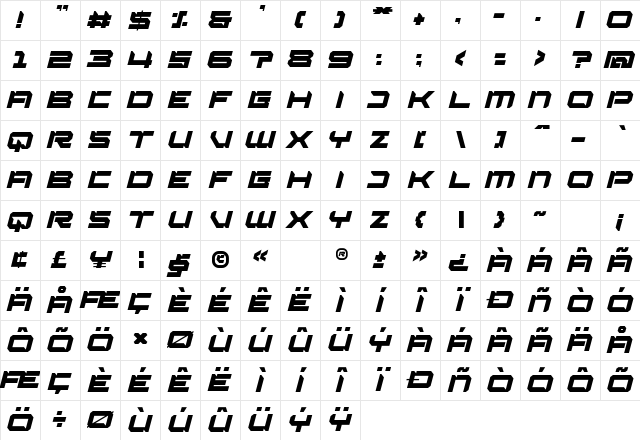
Posver Regular Free Font
Posver Regular
Designer: Nur Cholis Majid
Design Context for Posver
Posver is a composed and adaptable typeface that performs quietly and consistently across a wide range of design contexts.